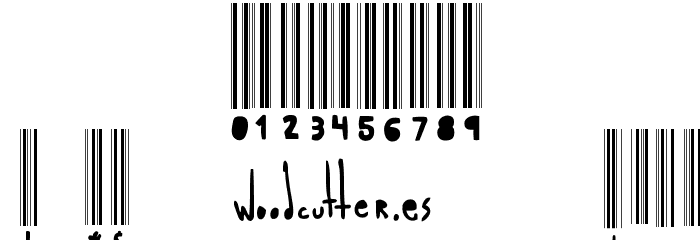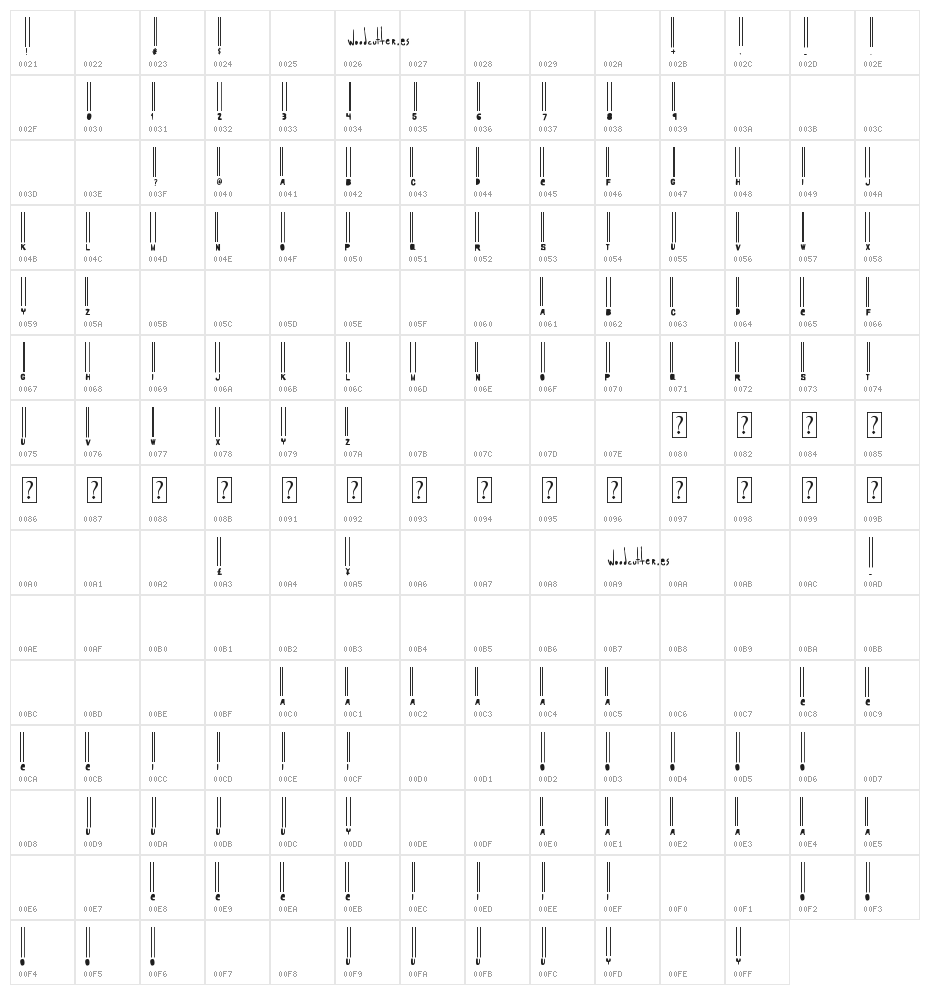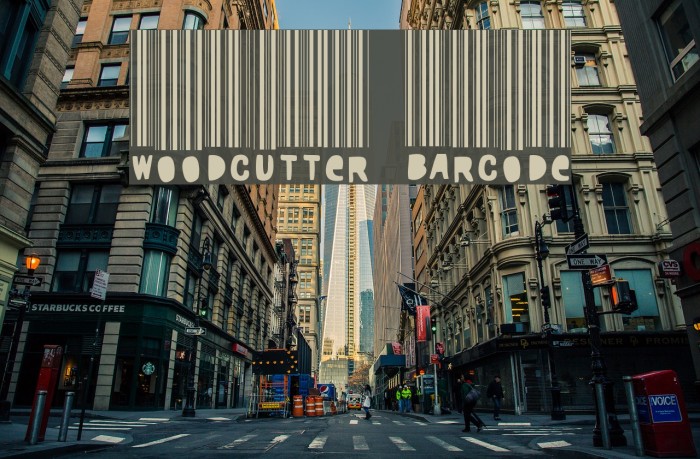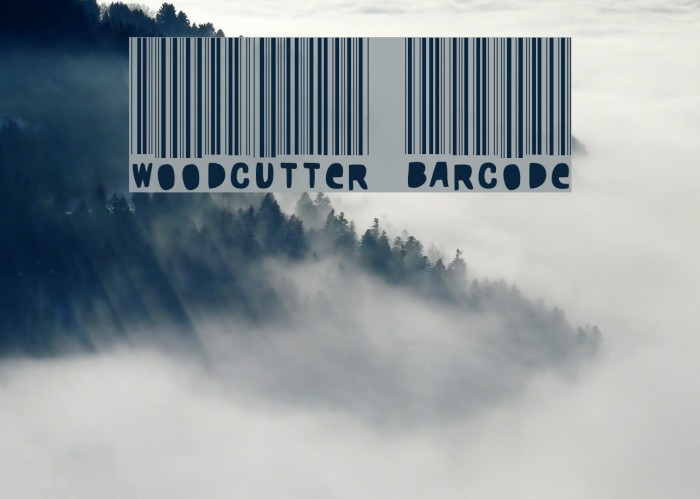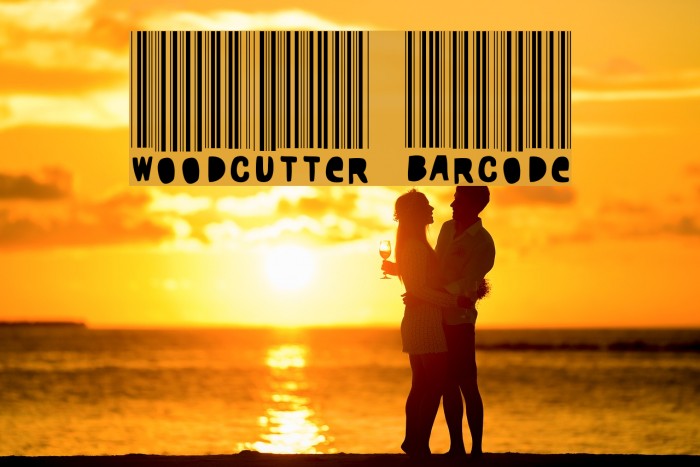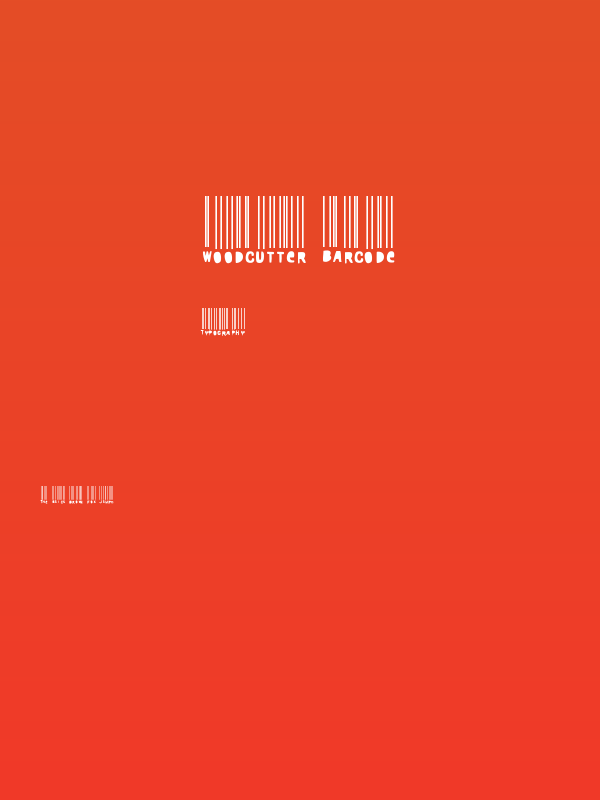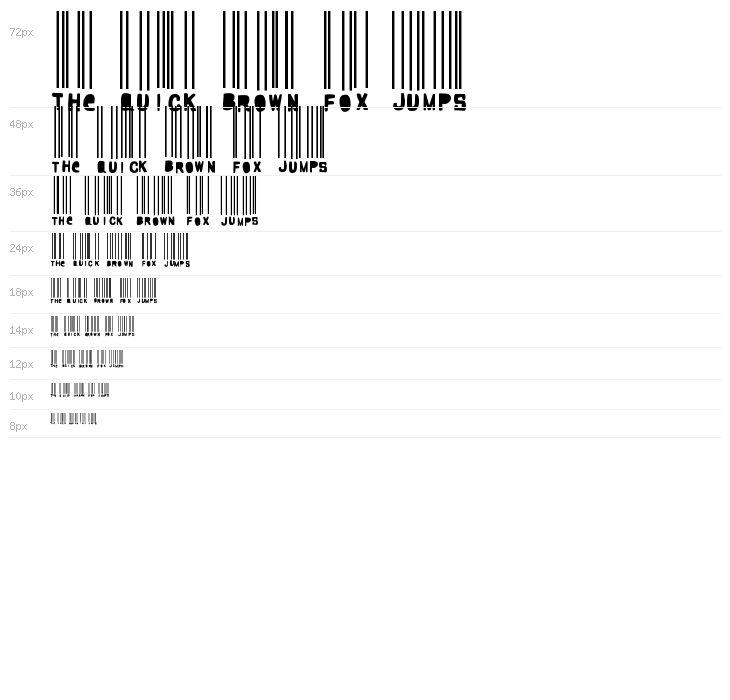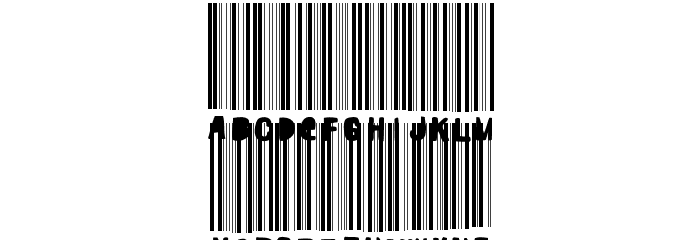
Woodcutter barcode Font
Woodcutter barcode Description
This font is a creative and playful representation of barcode aesthetics, where each character is designed to mimic the appearance of a barcode. The letters and numbers are integrated into the barcode lines, creating a unique visual effect that blends typography with industrial design. The font is bold and striking, with a high contrast between the thick and thin lines that form the barcode pattern. It captures attention with its unconventional style, making it ideal for projects that require a modern and edgy look. The character spacing is tight, enhancing the barcode illusion while maintaining legibility.
| Use Case | Logos, Posters, Branding |
| Proposed Projects | Ideal for creative branding, packaging design, tech-themed posters, and modern art projects. |